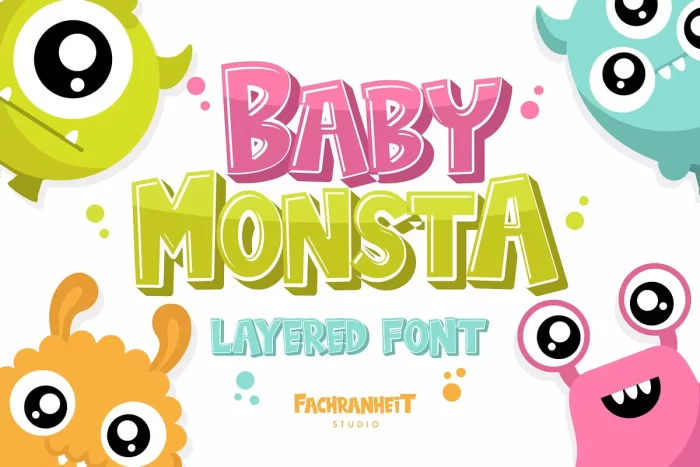
Baby Monsta Font
Baby Monsta is a layered display font. The unique characteristics of Baby Monsta make it very suitable for various purposes such as quotes, t-shirt designs, flyers, youtube channels, labels, logos etc.